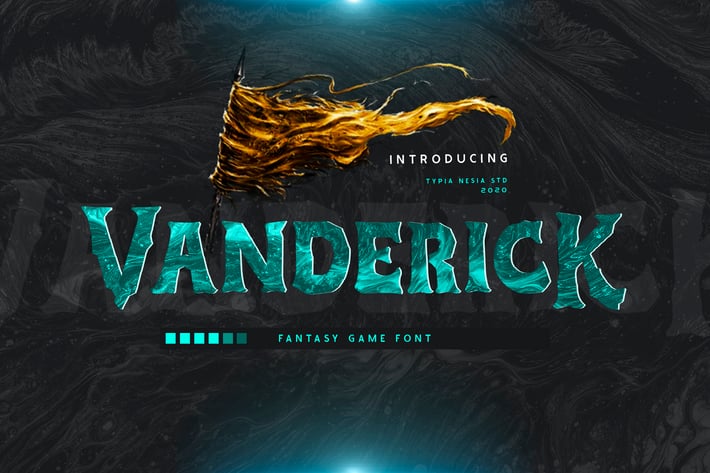
Vanderick Fantasy Game Font
Vanderick Fantasy Game Display Font - Pirate Horror NovelGrounded - Gothic Decorative Display Font
Suitable for any design needs : logo, branding, modern advertising design, halloween, gothic design, apparel, hardcore music, fantasy animation or movie, logos, adventure poster quote, game industry, music / band, book / cover Title, editorial design, website / blog, card, custom mug, pillow, t-shirts, and any gothic hand-lettered needs.